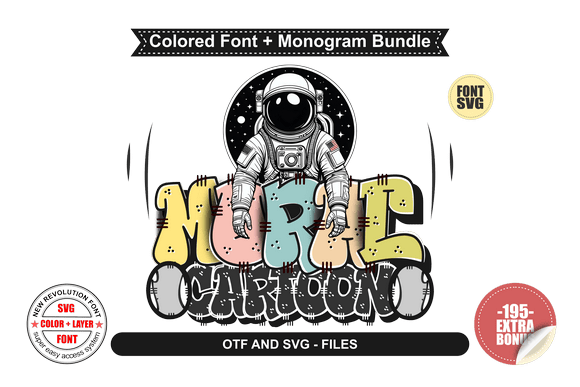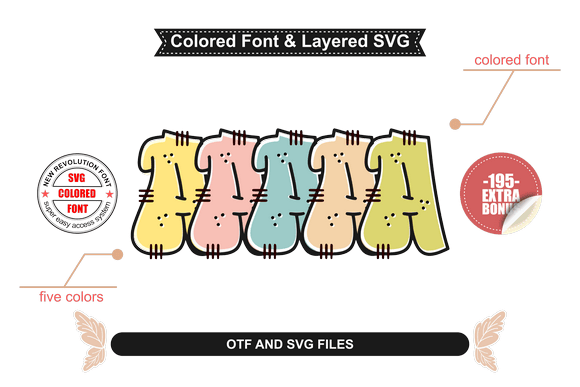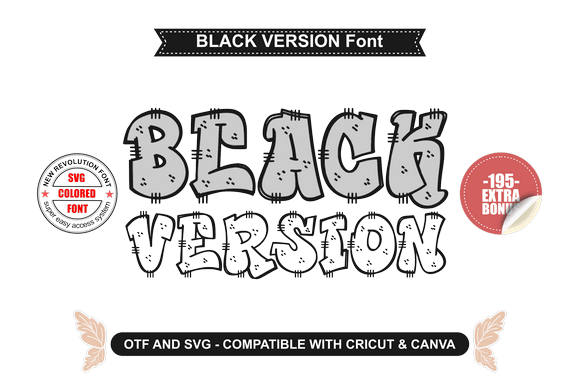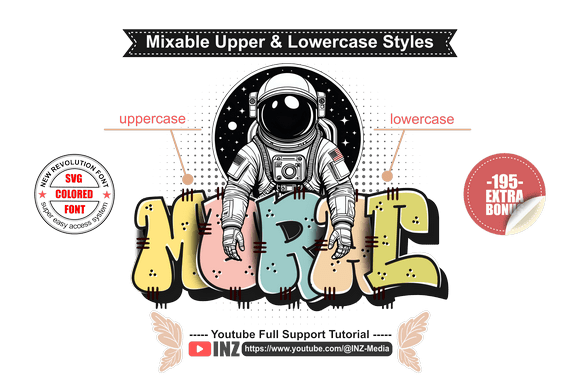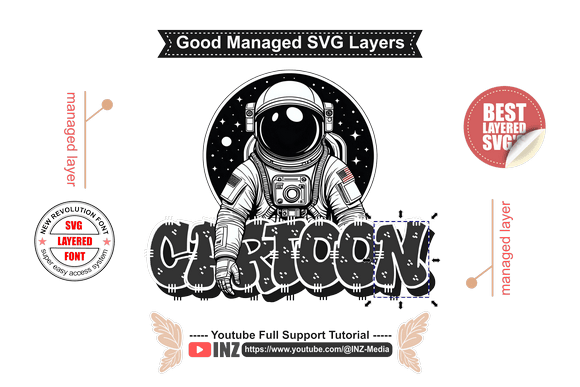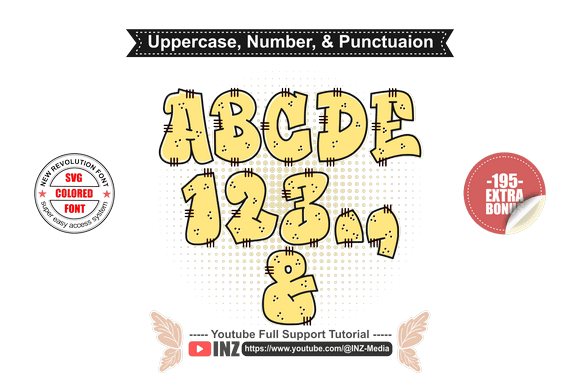
Introduction to Mural Font
Mural is a cute and quirky color font with a cheerful charm.
Its bright colors and unique letterforms evoke excitement and joy Ideal for projects looking for a fun and lively touch, Mural adds a pop of color and playfulness to your creative endeavors.
Key Features of Mural Font